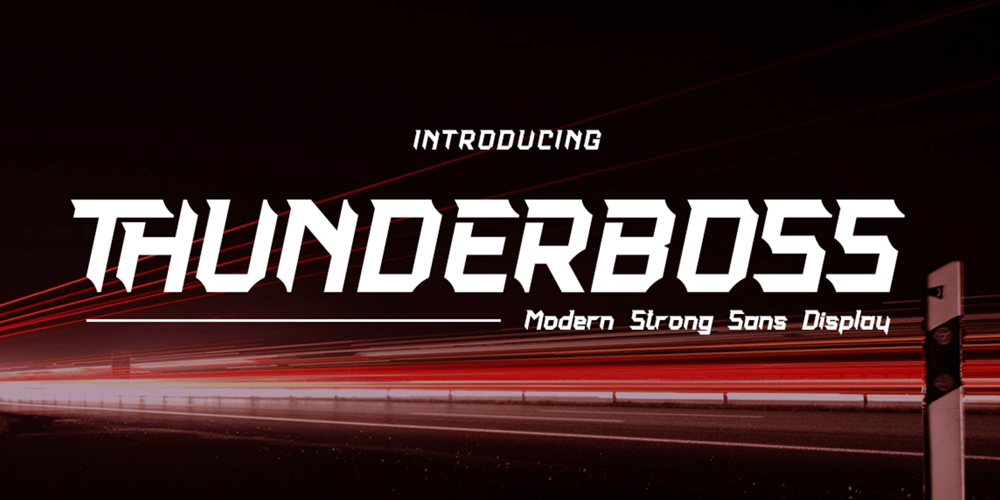
Thunderboss
Thunderboss font
Thunderboss Font Family was designed by Sarwo Edhi Prayitno and published by Haksen. Thunderboss contains 2 styles and family package options. Thunderboss is a strong modern sans style with upper and lowercase feel nice balanced. Its wide range of uppercase with alternates and ligatures allow versatile design options and works perfectly for headlines, logos, posters, packaging, T-shirts and much more. Font Features : Regular and Italic version Character set A-Z Ligatures in Uppercase Alternates in Uppercase Numerals & Punctuation Accented Characters Multiple Languages Supported Format File: OTF Recommended to use in Adobe Illustrator or Adobe Photoshop with opentype feature.Ligatures feature is default setting in Adobe Illustrator or Adobe Photoshop in Uppercase character. So when you want not to use the ligatures.Open glyphs panel : In Adobe Photoshop choose tool Window >> Character and then please klick fi symbol In Adobe Illustrator choose tool Window >> Type >> Open Type and then please klick fi symbol How to access Alternate Characters?Open glyphs panel : In Adobe Photoshop choose tool Window >> glyphs In Adobe Illustrator choose tool Type >> glyphs If you have questions, just send me a message and I’m glad to help. Have a great day,Haksen Std